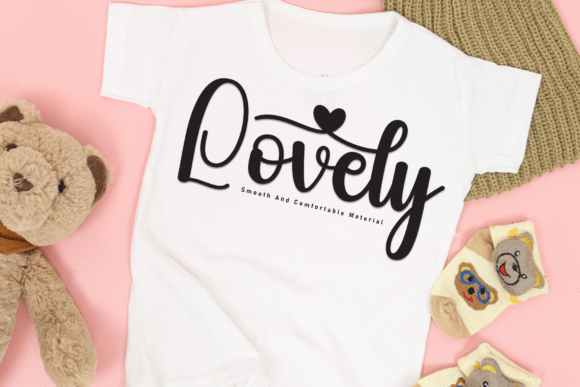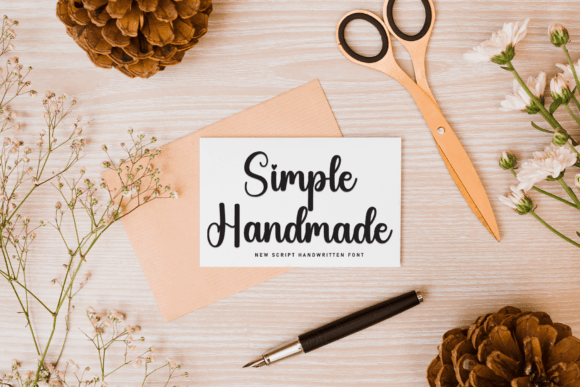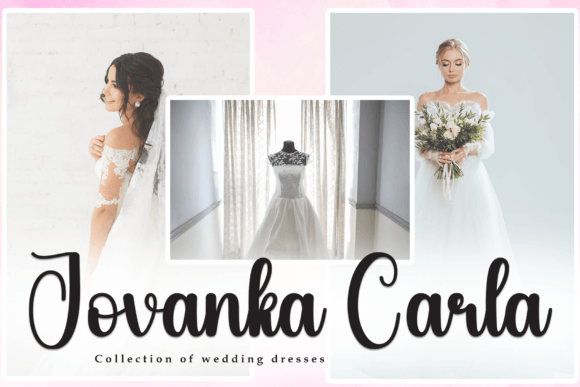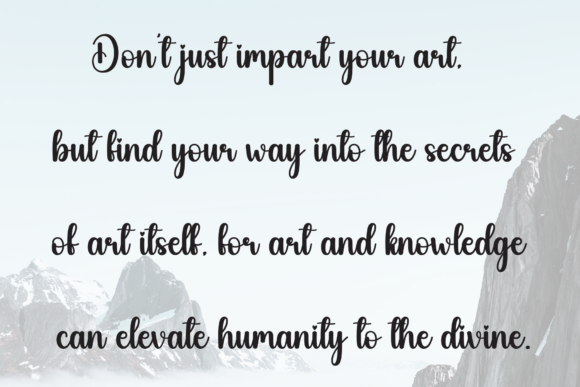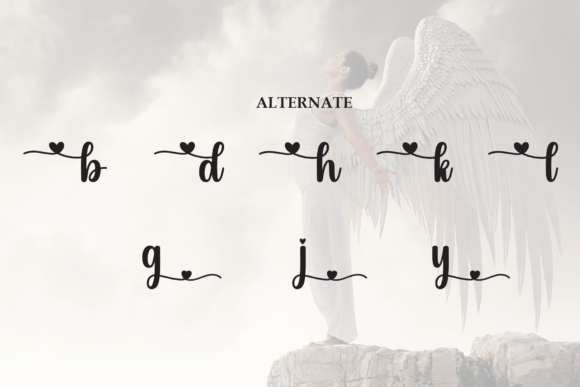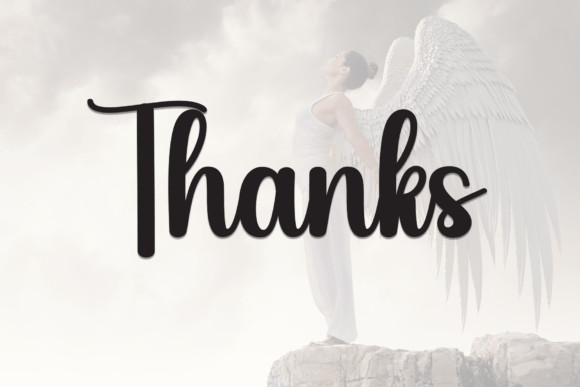
Introducing Angelic Font: A Sweet and Friendly Handwritten Delight
Are you on the hunt for a font that embodies warmth, approachability, and a touch of whimsy? Look no further than Angelic Font, a beautiful handwritten font that is sure to capture your heart. With its natural and unique style, Angelica is an incredibly versatile font that can be used in a wide range of designs, from sweet and sentimental to bold and playful.
The Charm of Angelic Font
Angelic Font, also known as Angelica, boasts a distinctive handwritten style that exudes a sense of friendliness and approachability. Its flowing lines, gentle curves, and subtle imperfections give it a delightfully human feel that is sure to resonate with designers and crafters alike. Whether you’re working on a project for a client or creating something for personal use, Angelica’s charm is sure to shine through.
Endless Possibilities with Angelica
The beauty of Angelica lies in its incredible versatility. This sweet and friendly font can be used in a multitude of designs, from:
- Invitations and greeting cards: Create beautiful, one-of-a-kind invitations and cards for special occasions, such as weddings, birthdays, and holidays.
- Branding and packaging: Use Angelica to add a touch of warmth and personality to your brand’s packaging and marketing materials.
- Signs and posters: Create eye-catching signs and posters for events, promotions, or simply to add a decorative touch to your home or office.
- Digital media: Use Angelica in your digital creations, such as social media graphics, blog posts, and email newsletters.
What Makes Angelica So Special?
So, what sets Angelica apart from other fonts? Here are just a few reasons why this font is a standout:
- Unique style: Angelica’s natural, handwritten style gives it a distinctive look that is sure to grab attention.
- Highly legible: Despite its whimsical nature, Angelica remains highly legible, making it perfect for use in a variety of applications.
- Emotional connection: Angelica’s friendly and approachable style helps to create an emotional connection with your audience, making it ideal for designs that require a personal touch.
Tips for Using Angelica in Your Designs
To get the most out of Angelica, here are a few tips to keep in mind:
- Experiment with colors: Angelica looks beautiful in a range of colors, from soft pastels to bold brights. Don’t be afraid to experiment and find the perfect hue for your design.
- Mix and match: Combine Angelica with other fonts or design elements to create a unique and eye-catching look.
- Keep it simple: Don’t overcomplicate your design. Angelica’s beauty shines through when used in a simple, yet effective way.
In conclusion, Angelic Font is a sweet and friendly handwritten font that is sure to delight designers and crafters alike. With its natural and unique style, Angelica offers endless possibilities for a wide range of designs. Whether you’re looking to create something sentimental, playful, or bold, Angelica is the perfect choice. So why wait? Give Angelica a try today and discover the magic for yourself!